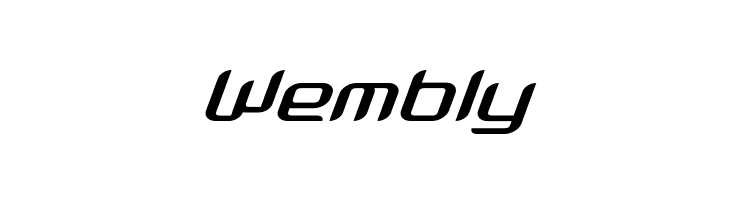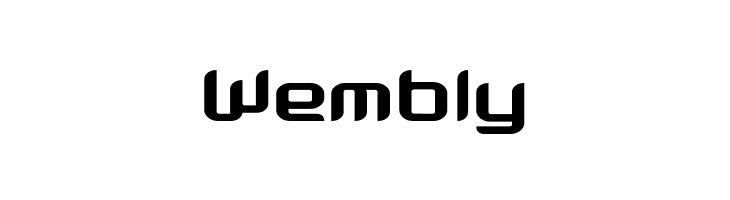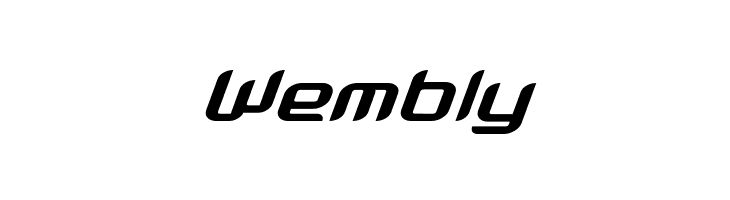
Nyooo Bold Font
A modern, geometric font with rounded edges and bold styling.
Nyooo BoldOblique Font
A bold, oblique font with a modern and dynamic style.
Nyooo Oblique Font
A sleek, modern oblique font with a dynamic and cohesive design.